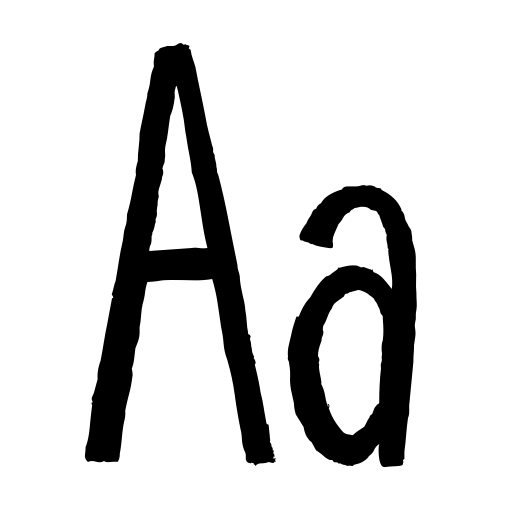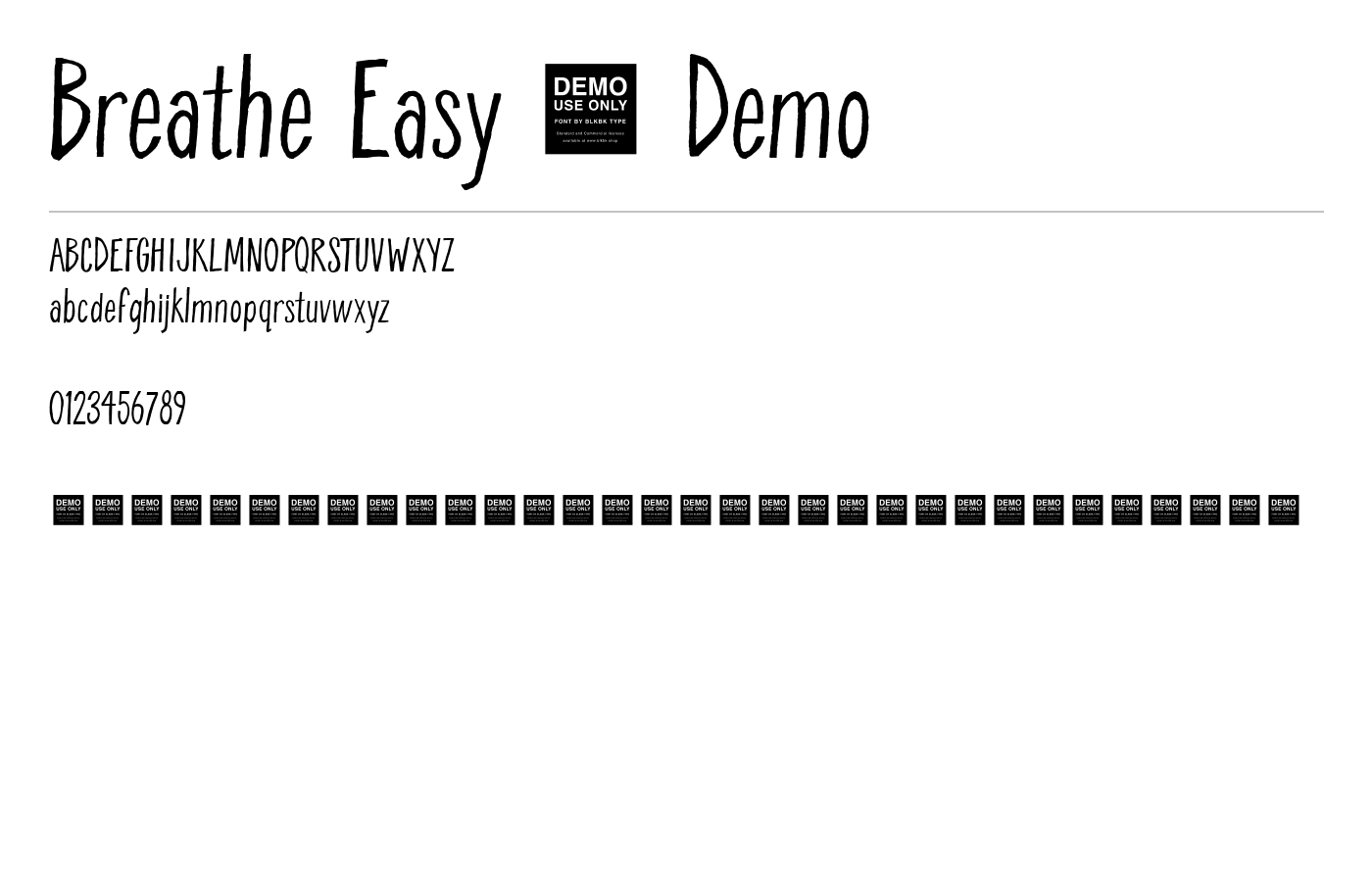
Breathe Easy is a tall, narrow sans serif font with a hand-drawn, casual feel. Its irregular strokes and slightly uneven letterforms give it a friendly, approachable personality, making it perfect for creative projects, informal branding, and playful headlines where a human touch is desired. This font works well in designs that want to convey warmth and individuality without sacrificing readability.
Breathe Easy - Demo Font
About Breathe Easy - Demo Font